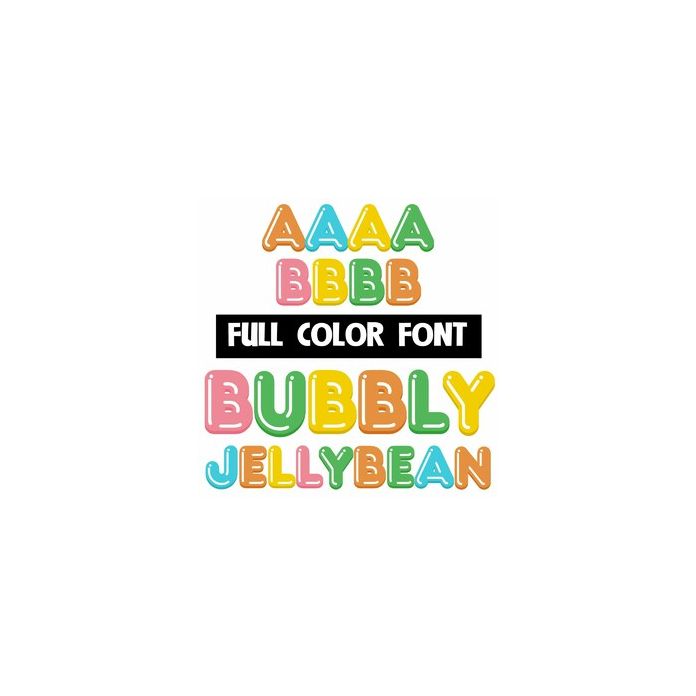
This full-color font features jellybean-colored lettering with strong highlights. There is a second alt case w/ additional colors you can access throughout Silhouette's glyph map.